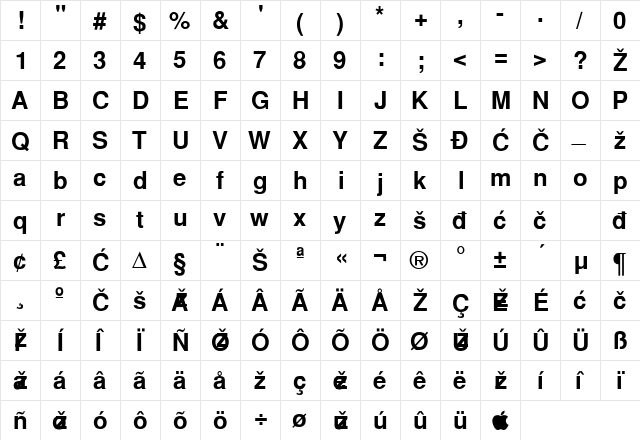
Helvetica_Lat Bold
Design Context for Helvetica_Lat Typeface
Helvetica_Lat offers clean, dependable letterforms without strong stylistic allegiance, making it a practical choice for designers who need flexibility. The heavy weight commands attention and anchors typographic hierarchies.
Pro Tip: Use Helvetica_Lat in both headline and body roles to test its range before committing to a single application.